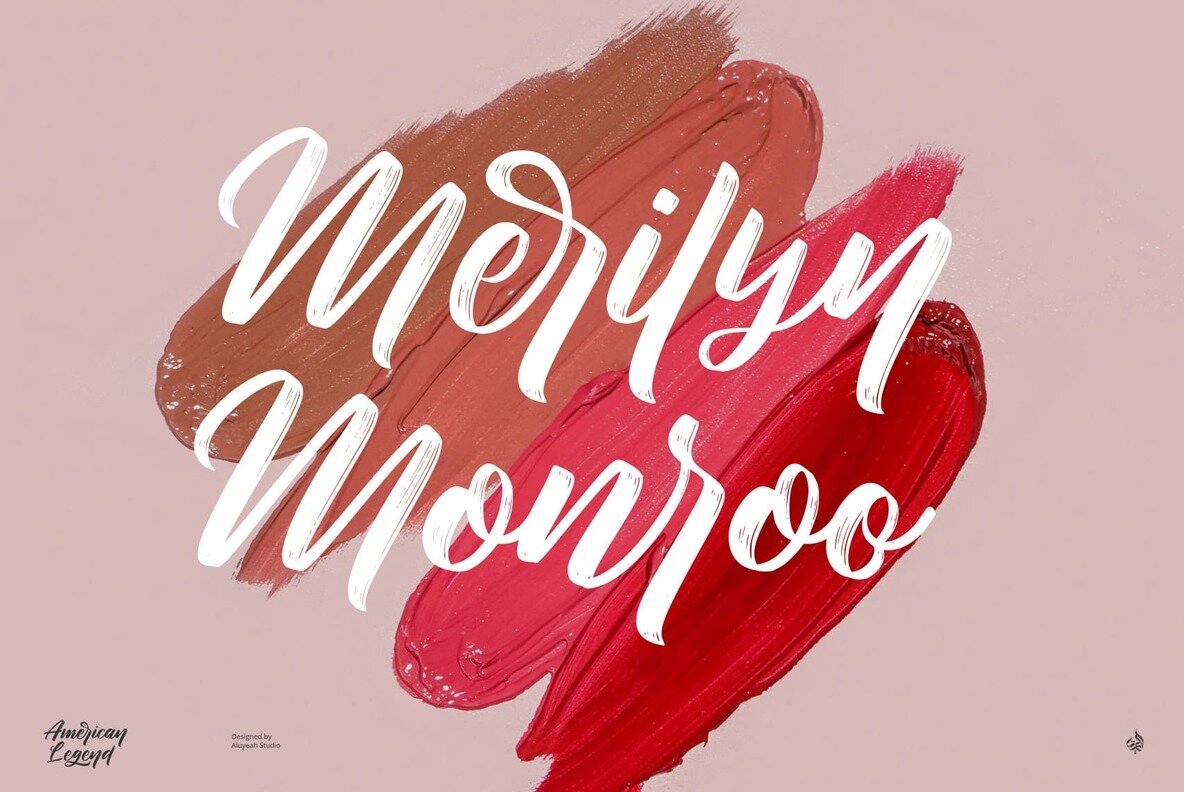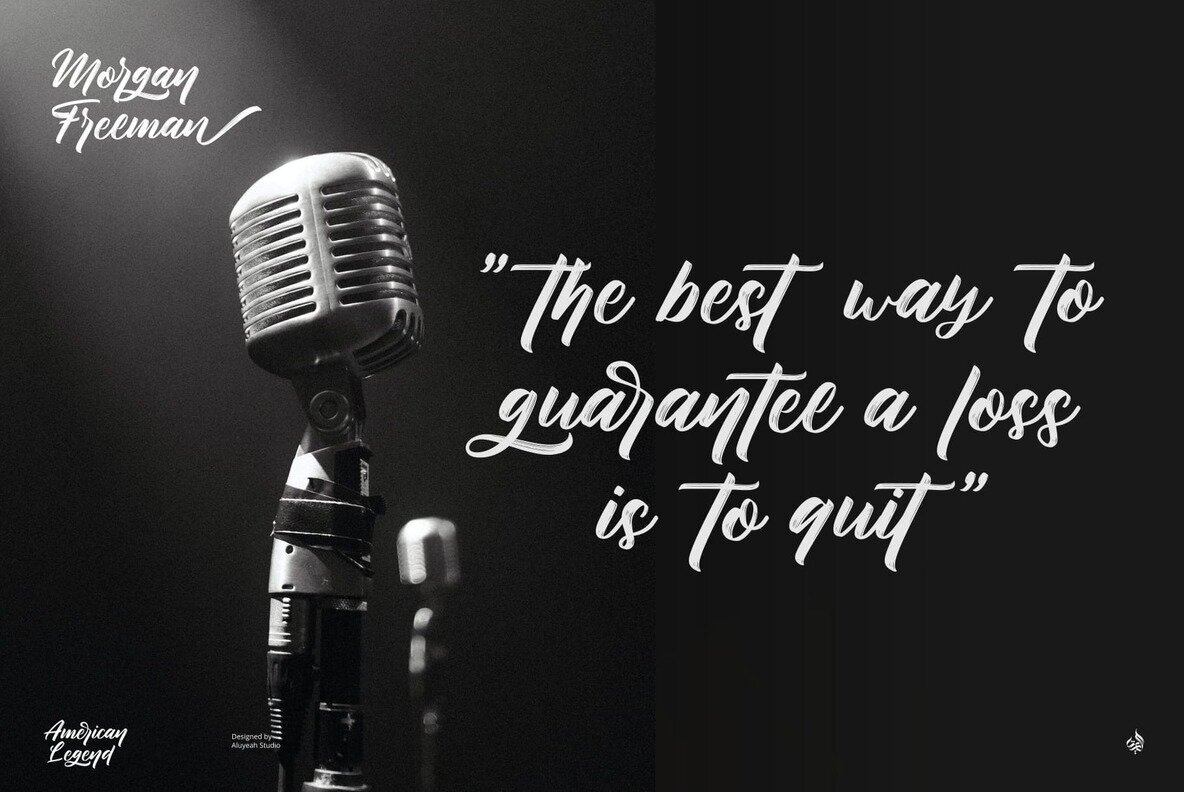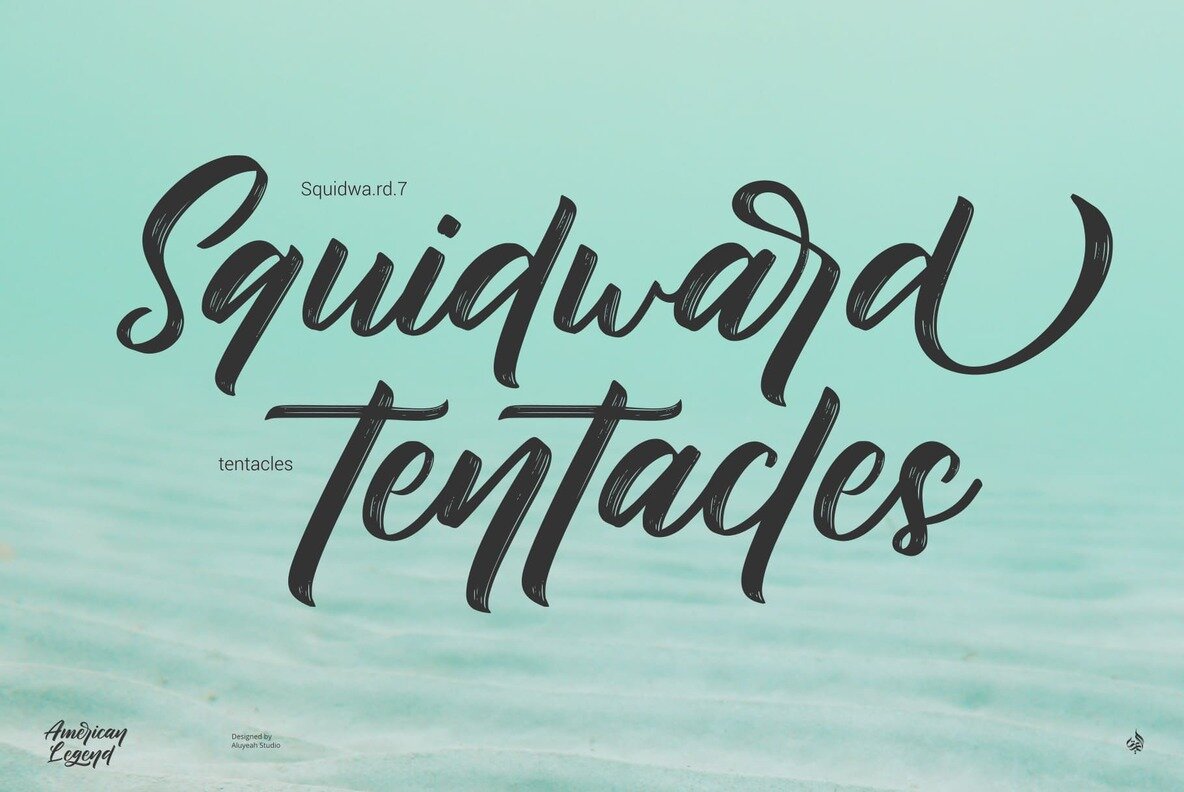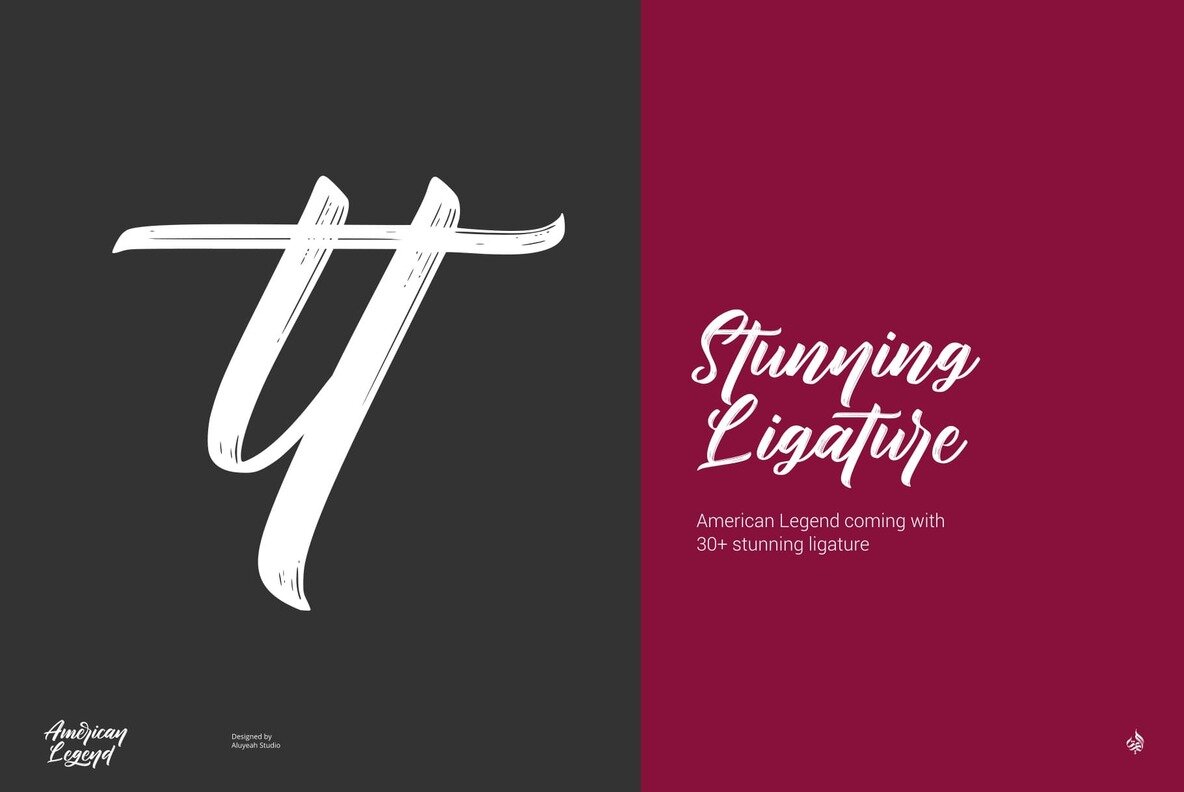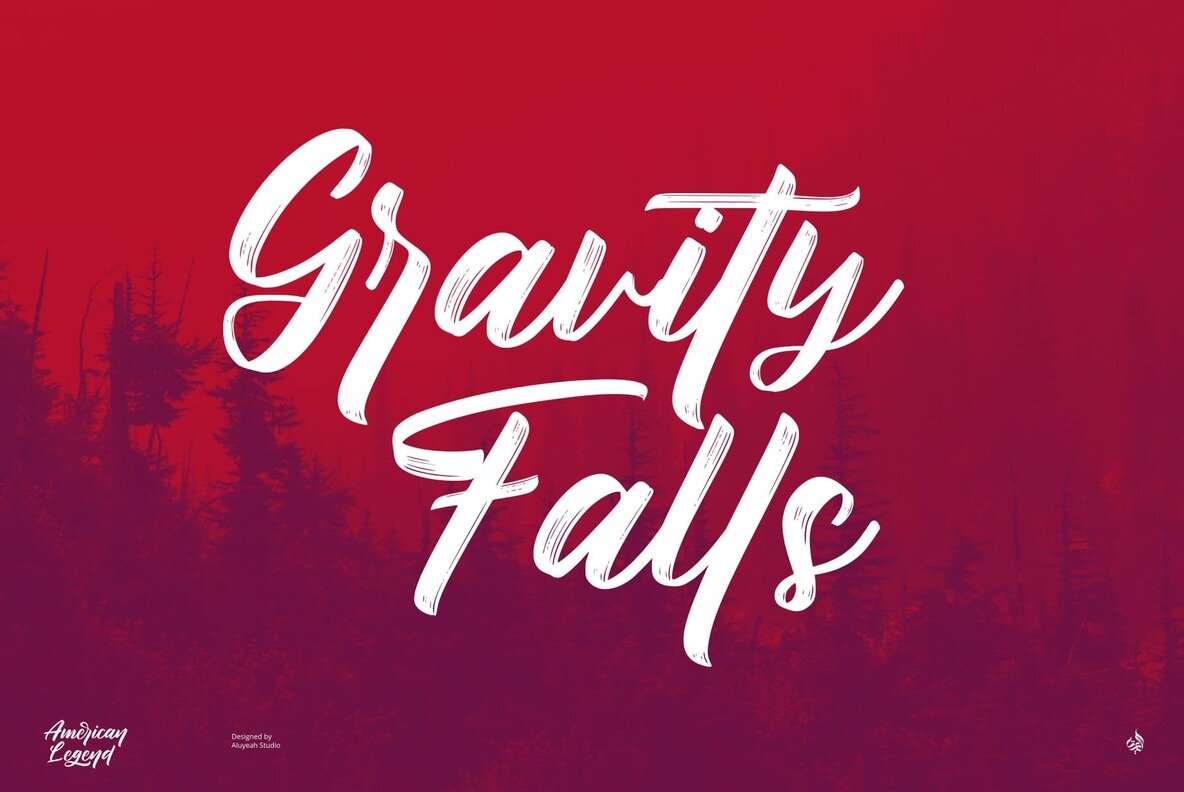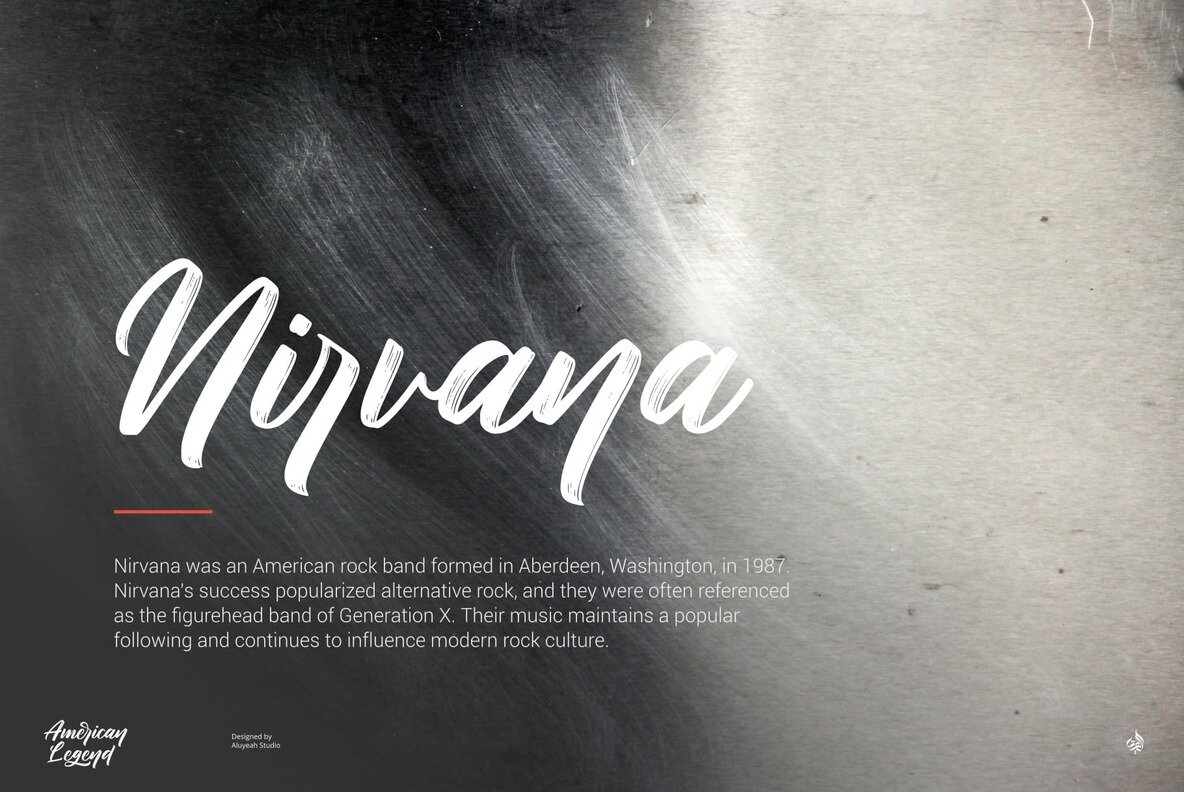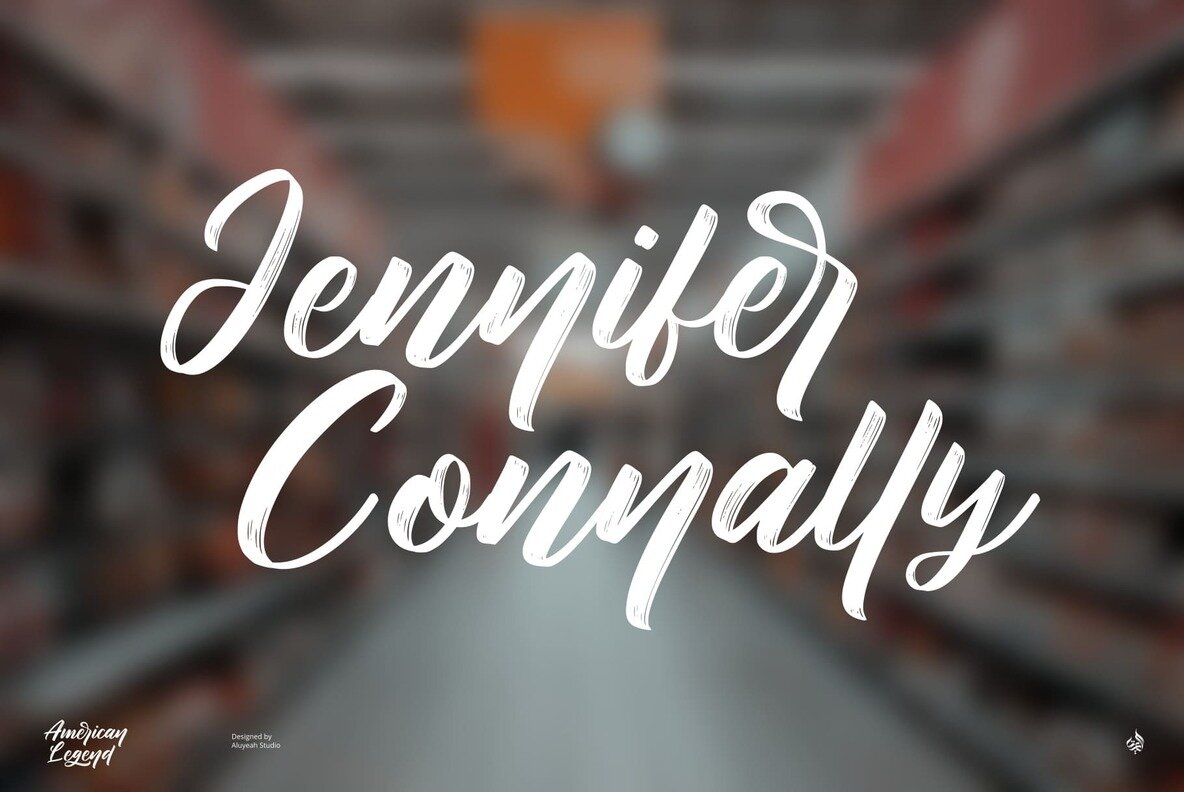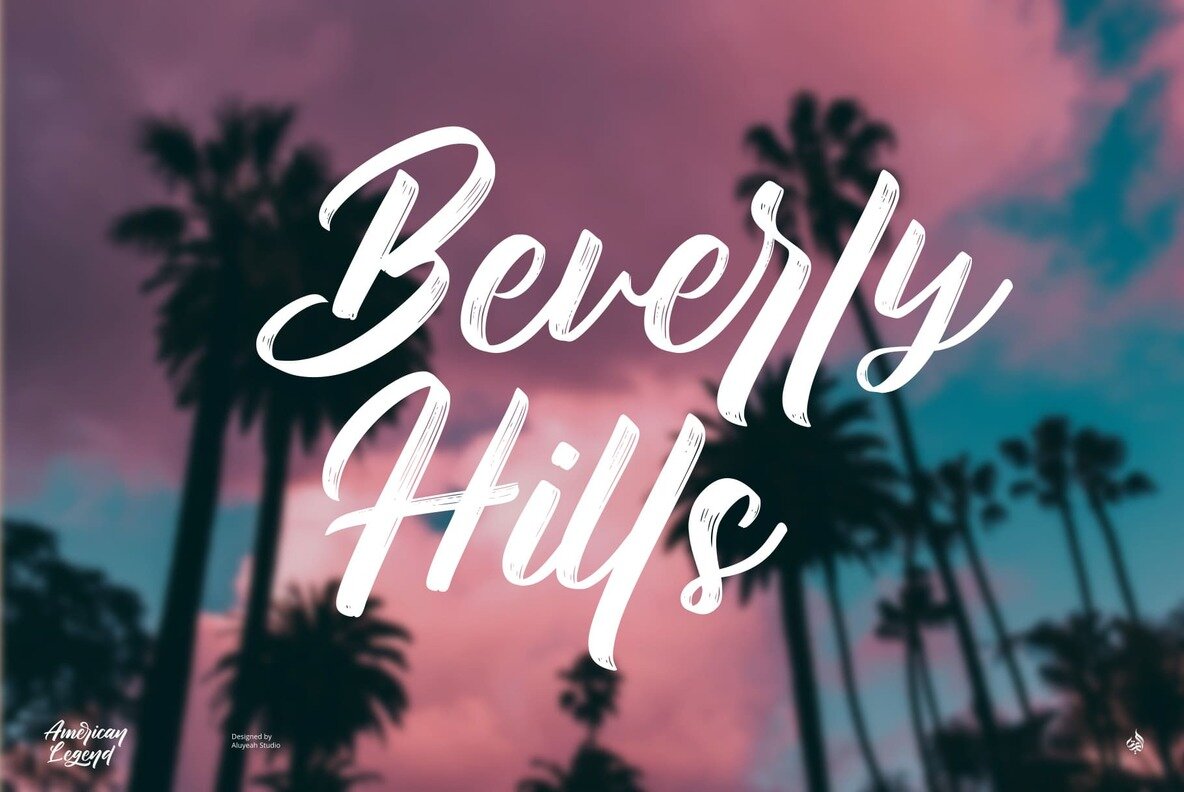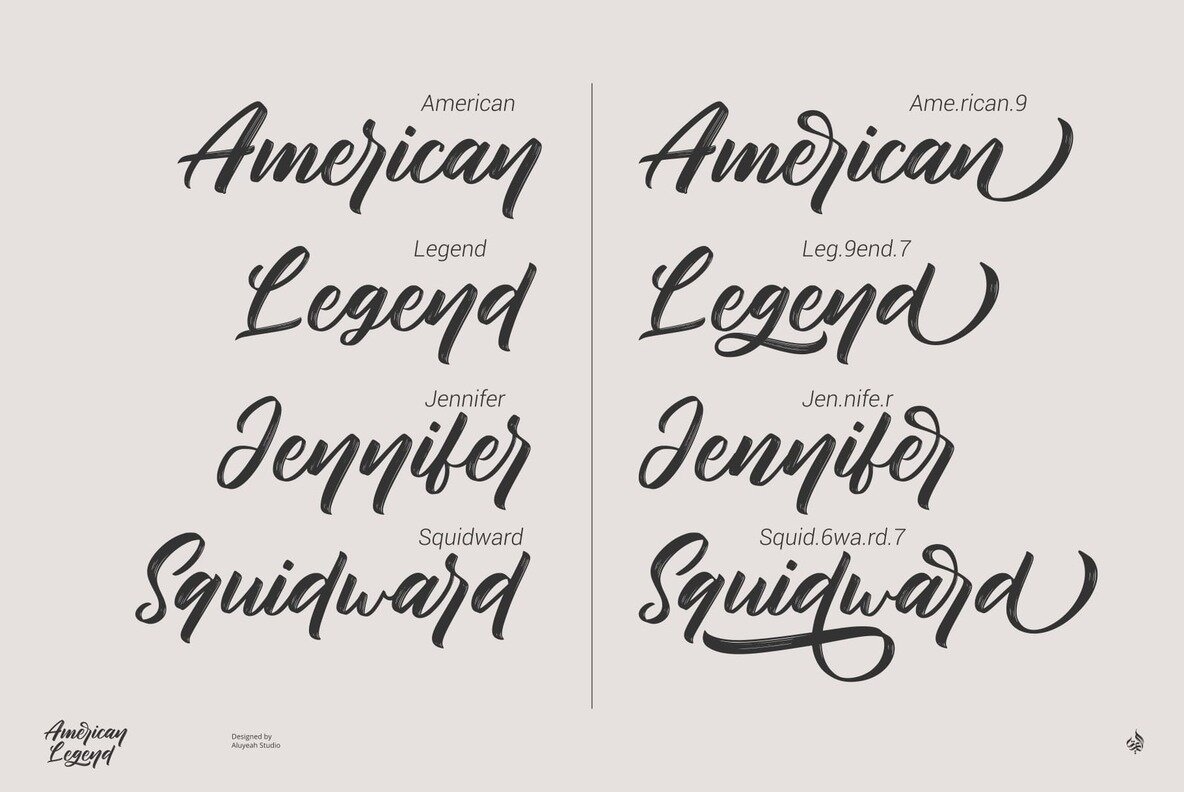
American Legend Font
Inspired by vintage handwriting, American Legend offers a rich script font like no other. Whether you're designing a logo, poster, or any creative project, this font adds a touch of elegance and nostalgia.American Legend: Vintage Script with Stunning Alternates